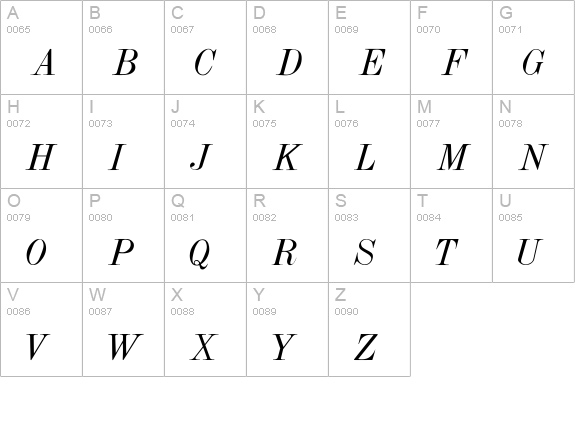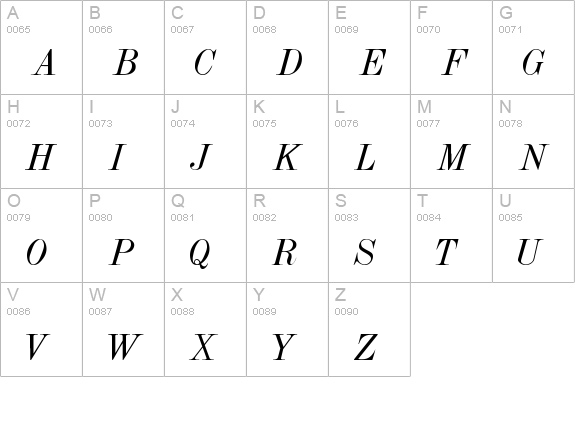
DubielItalic Font Details
DubielItalic font is a stylish and elegant typeface that exudes sophistication and charm. With its sleek and slanted design, this font adds a touch of modernity to any project. The unique curves and flourishes of DubielItalic make it perfect for branding, logos, headlines, and more. What's even better is that DubielItalic is available for free download at FontsMarket.com. So you can easily add this beautiful font to your design arsenal without breaking the bank. Don't miss out on the opportunity to enhance your projects with the timeless appeal of DubielItalic font. Download it now and let your creativity shine!